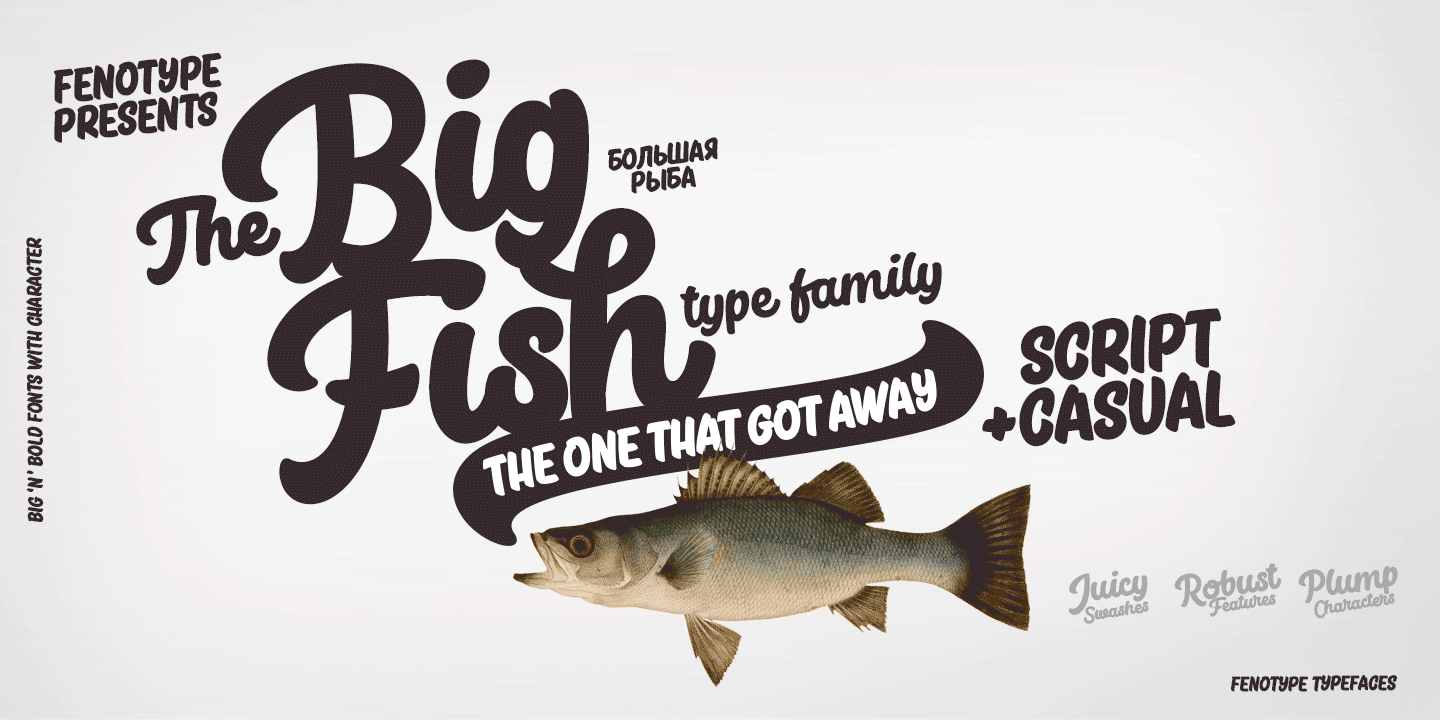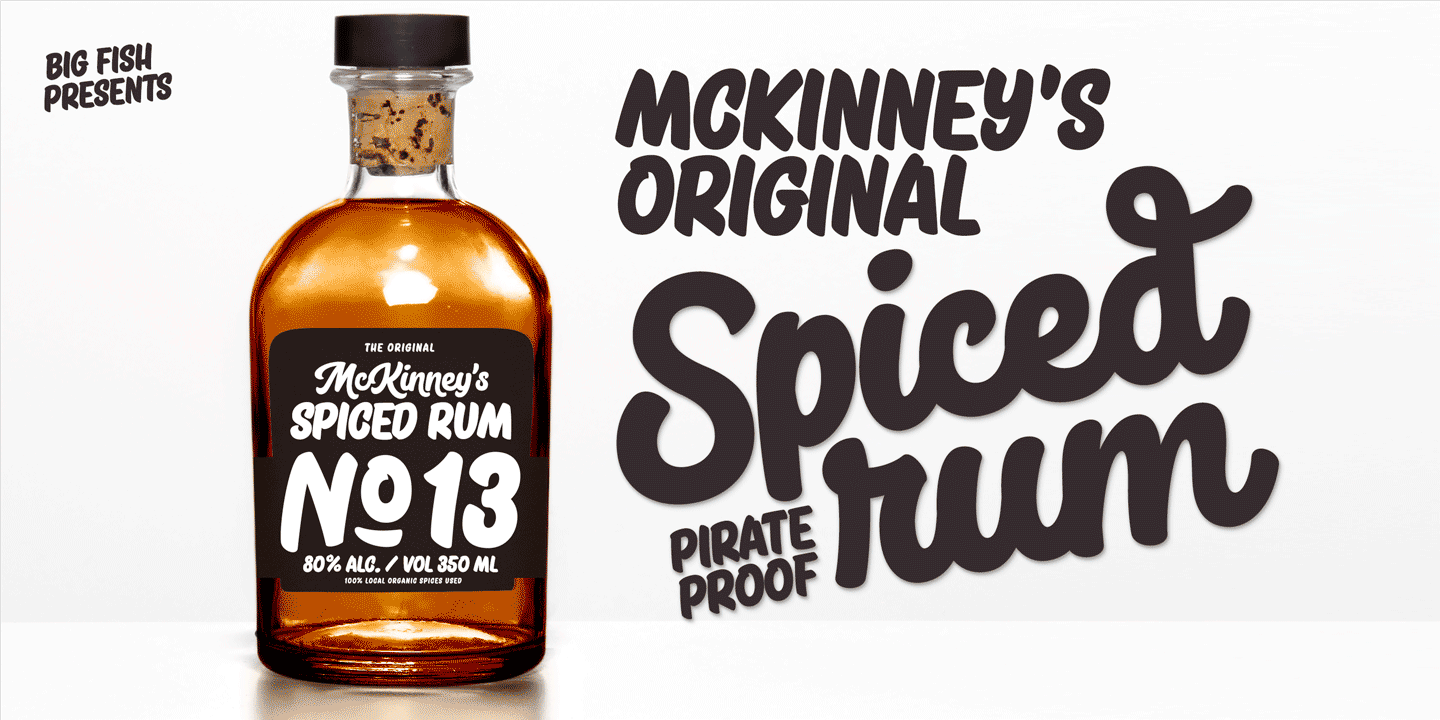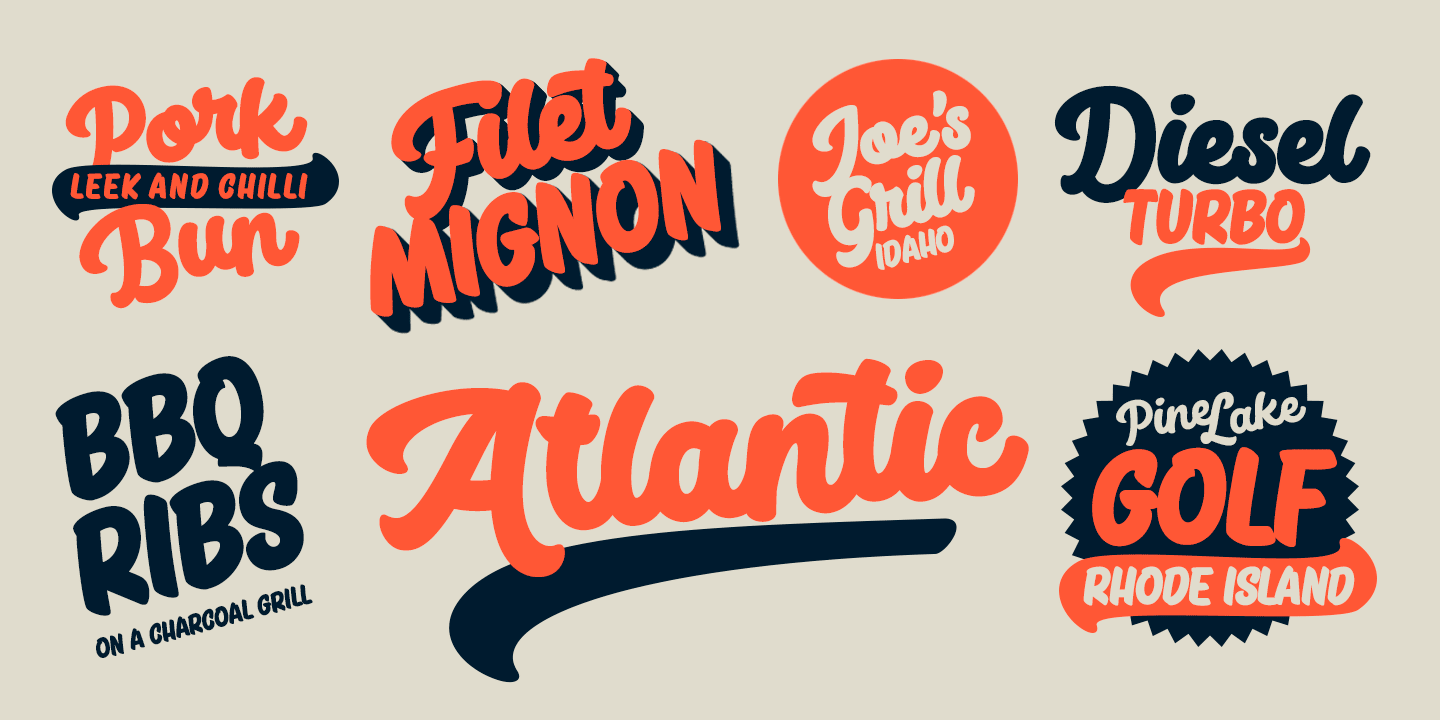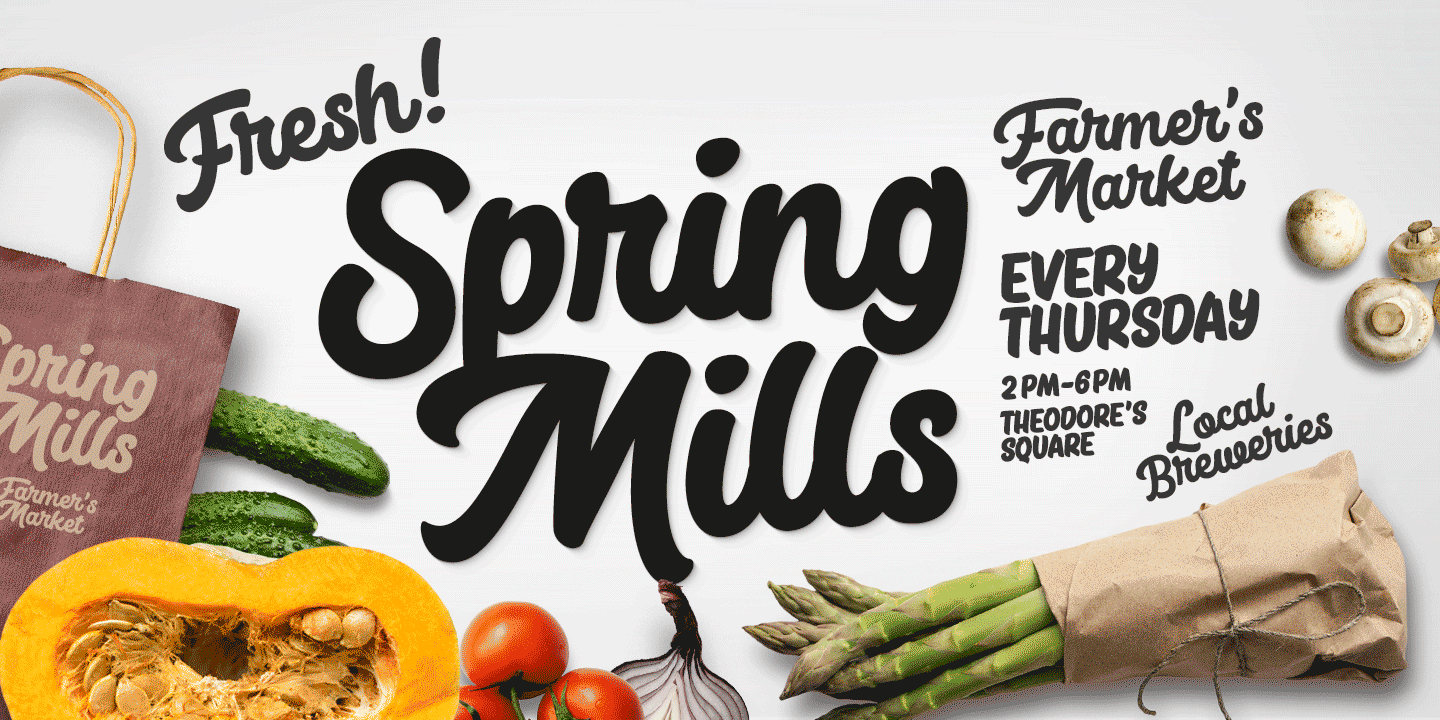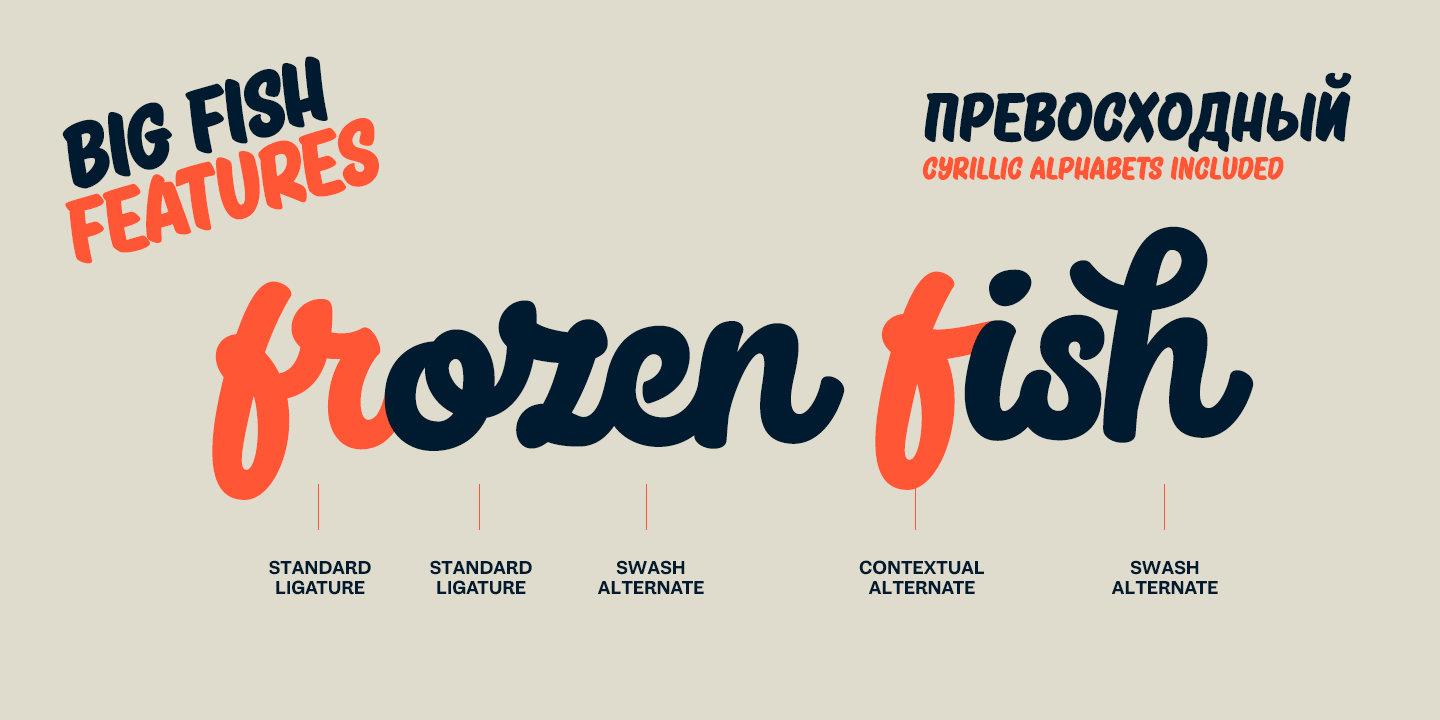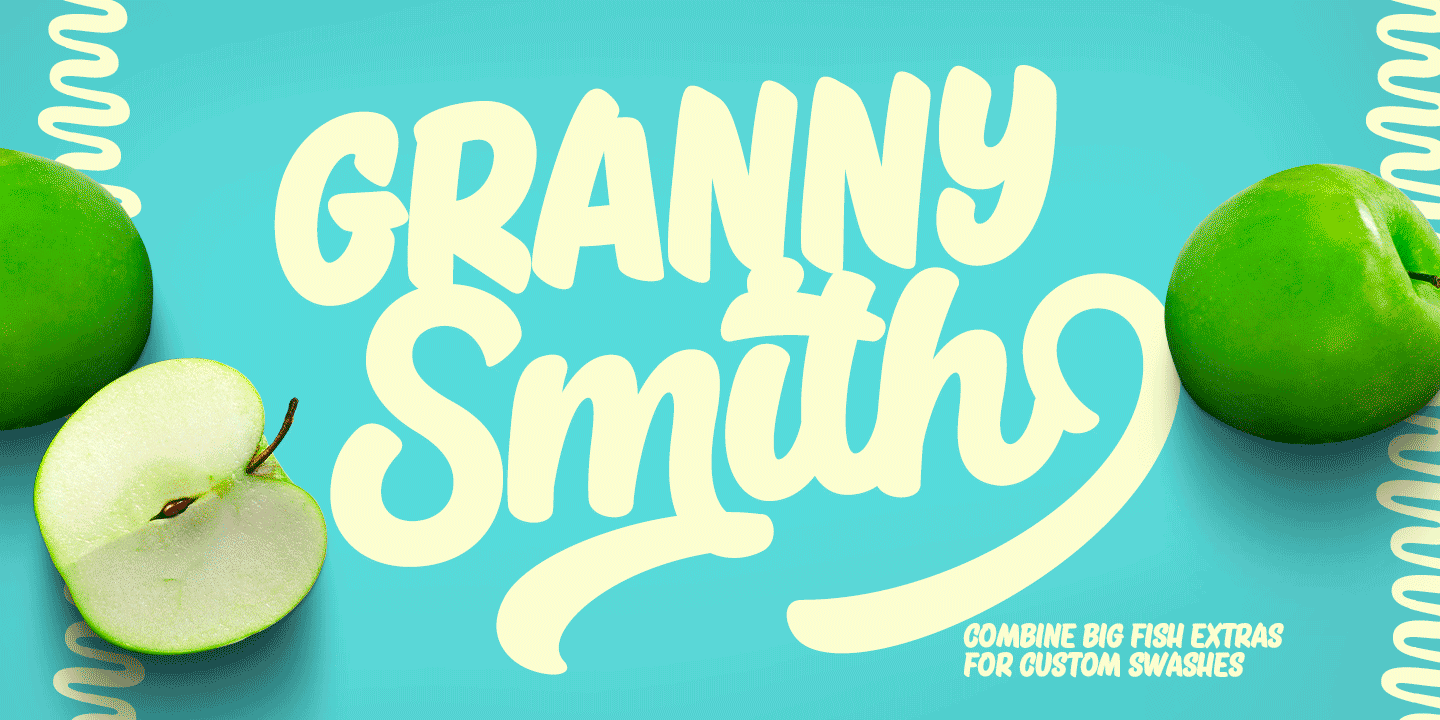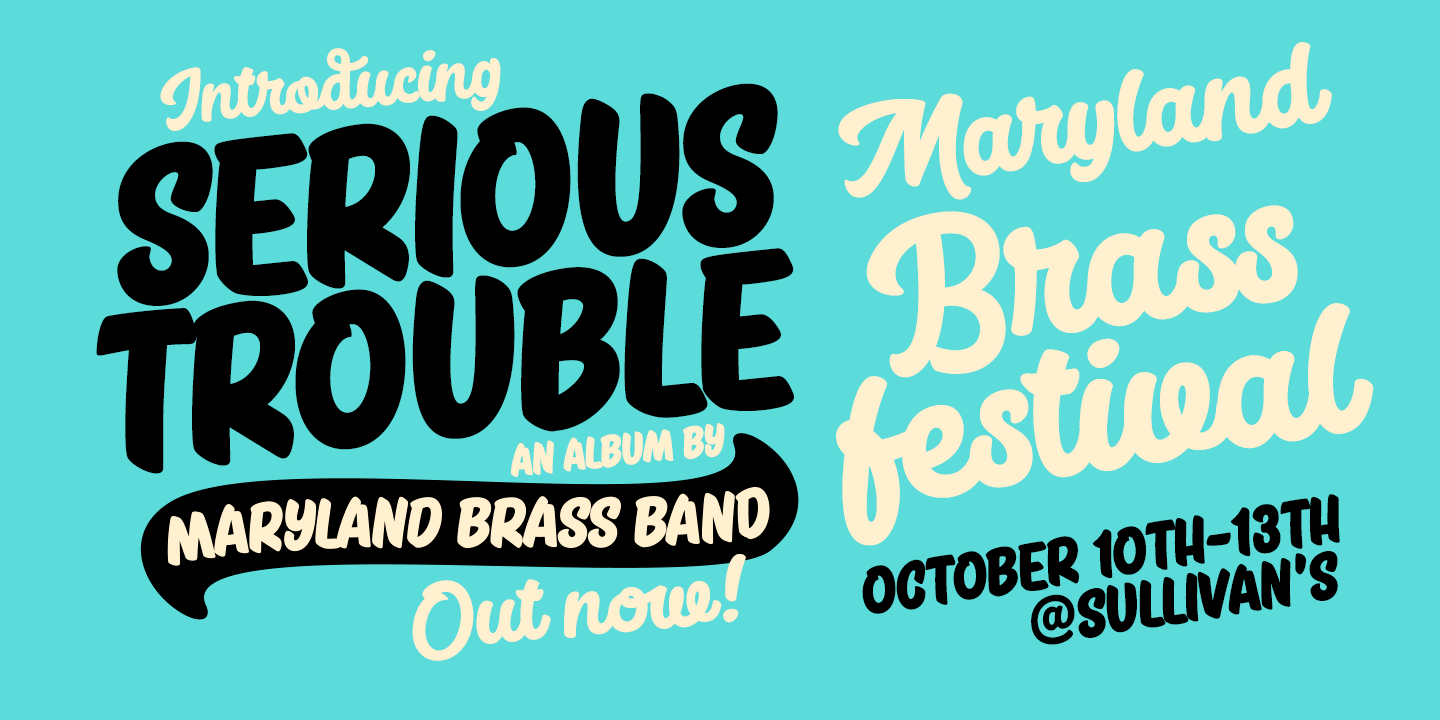
Big Fish
Big Fish is a low contrast Script and Slanted Casuals with bold characters. Big Fish has three weights of Script and a set of Extras that can be used as themselves or combined with script
charters for custom swashes.
Big Fish is packed with OpenType features: Keep on Contextual Alternates and Standard Ligatures for better flow and try Swashes to spice up your words.
Big Fish Casuals is a sturdy casual lettering font with same stroke shapes as the script. Casuals works great with the script but is also a strong font by itself. All Big Fish fonts have wide language support and cover even Cyrillic alphabets.
Big Fish is a tremendous pack for any display use from branding to packaging and online to print.